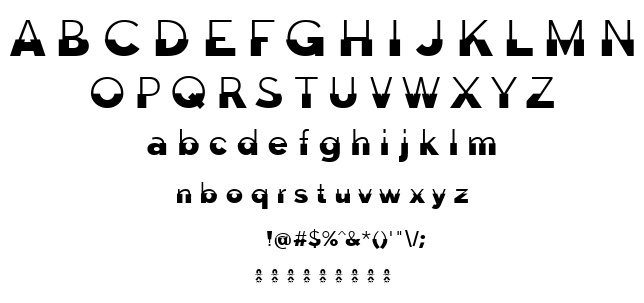
Dissolute is a typographical experiment fusion of two sans fonts with different weights, for which I used my previous Typefaces: Tabarra Black & Light.